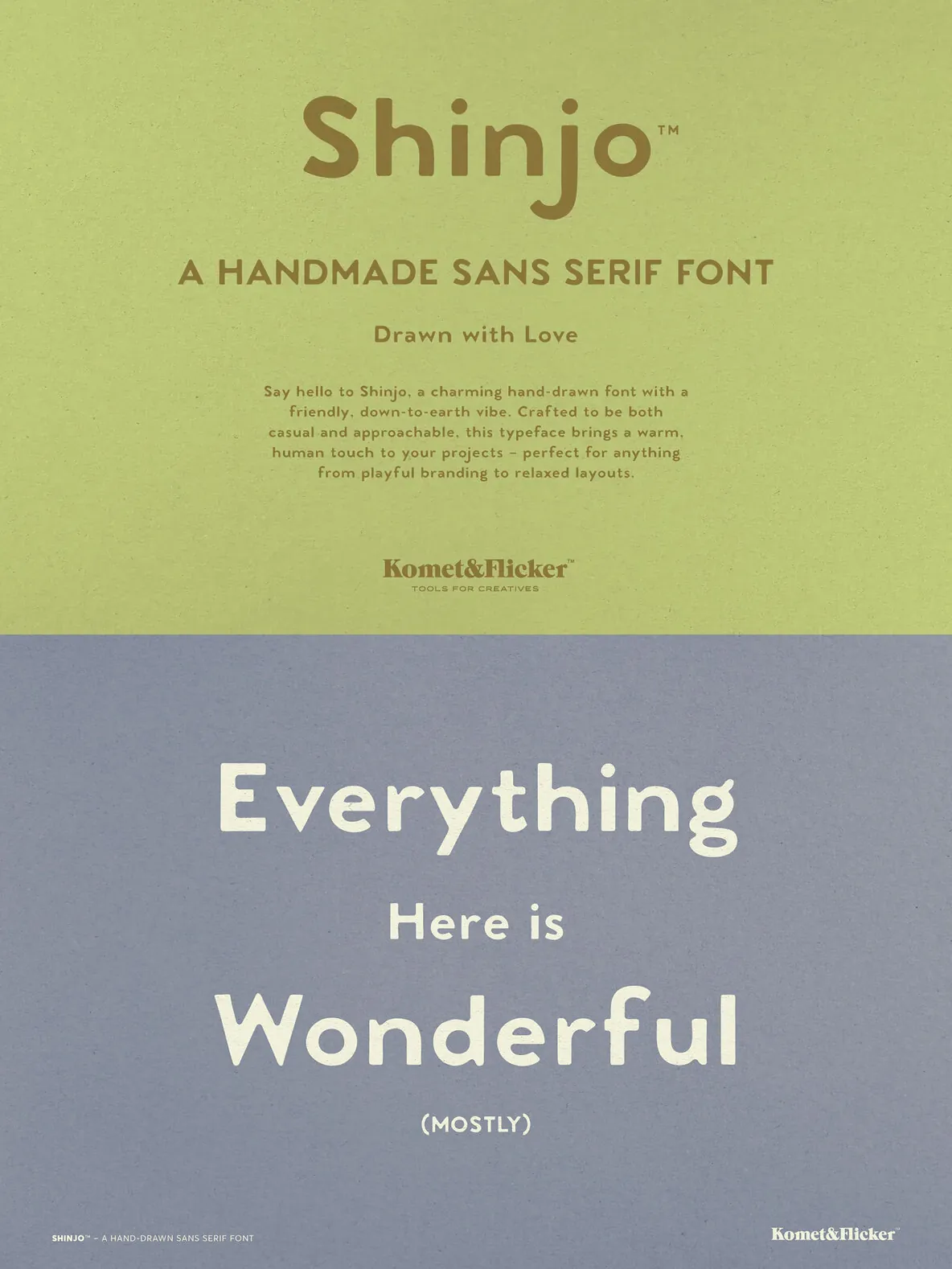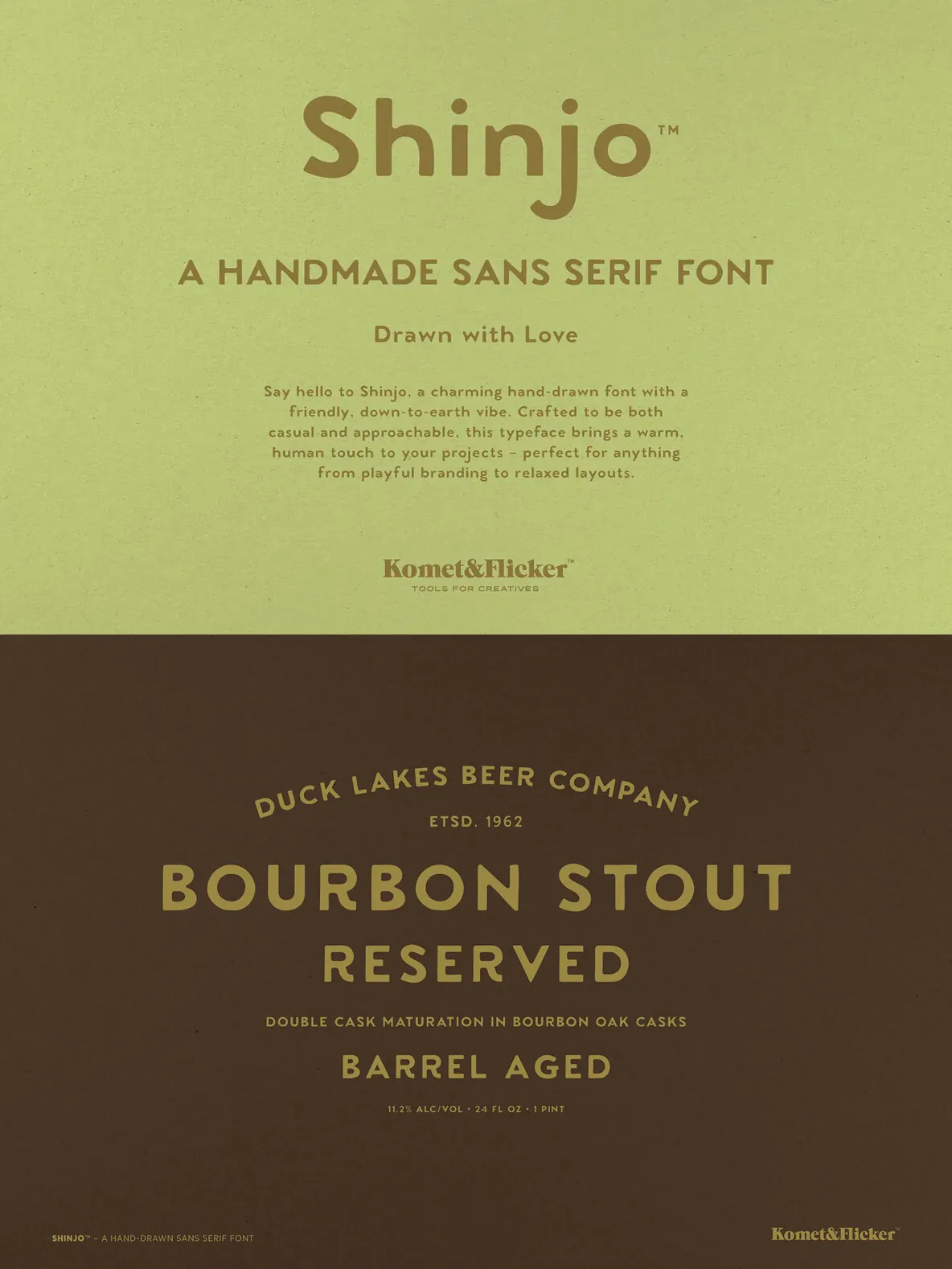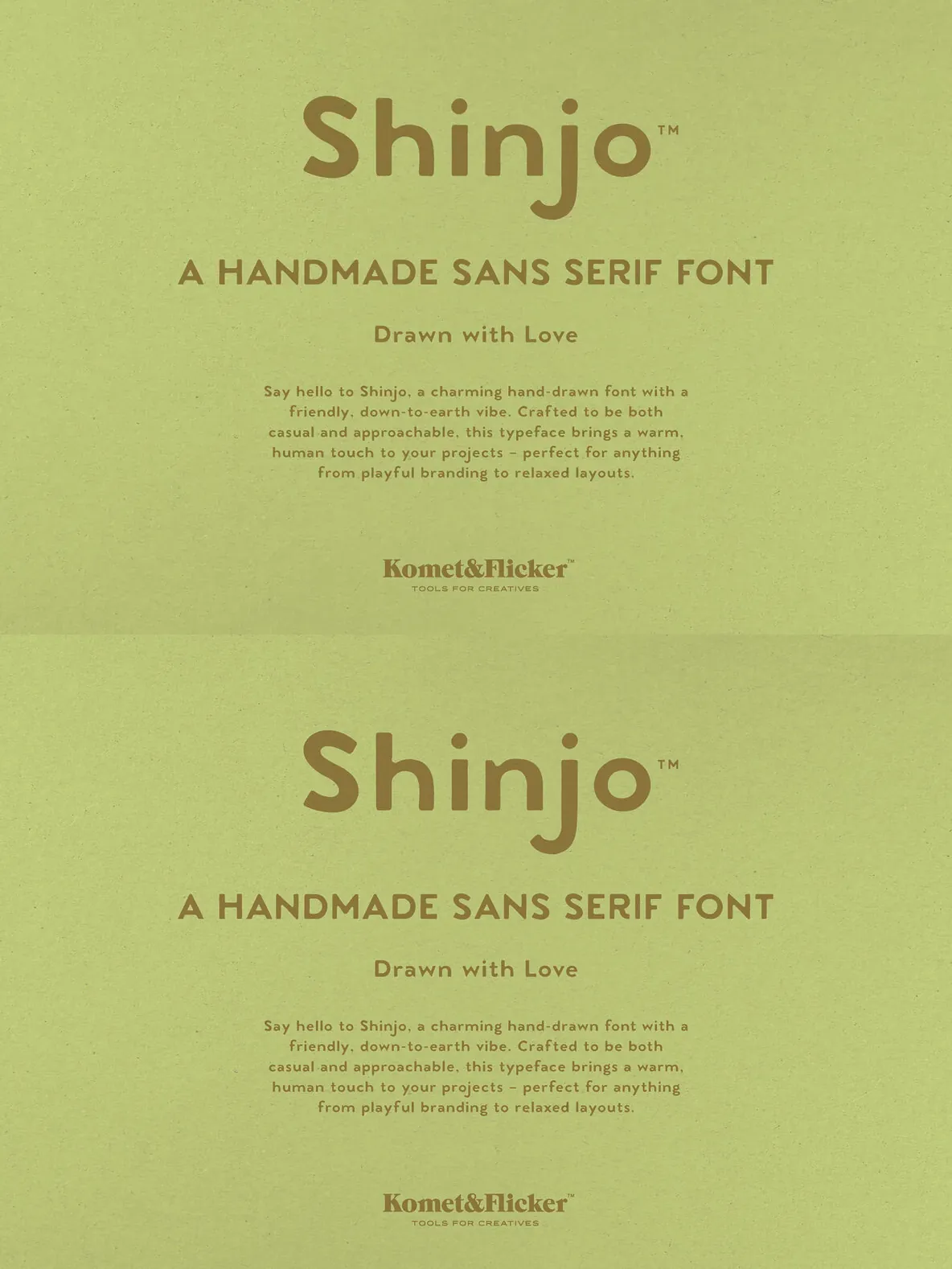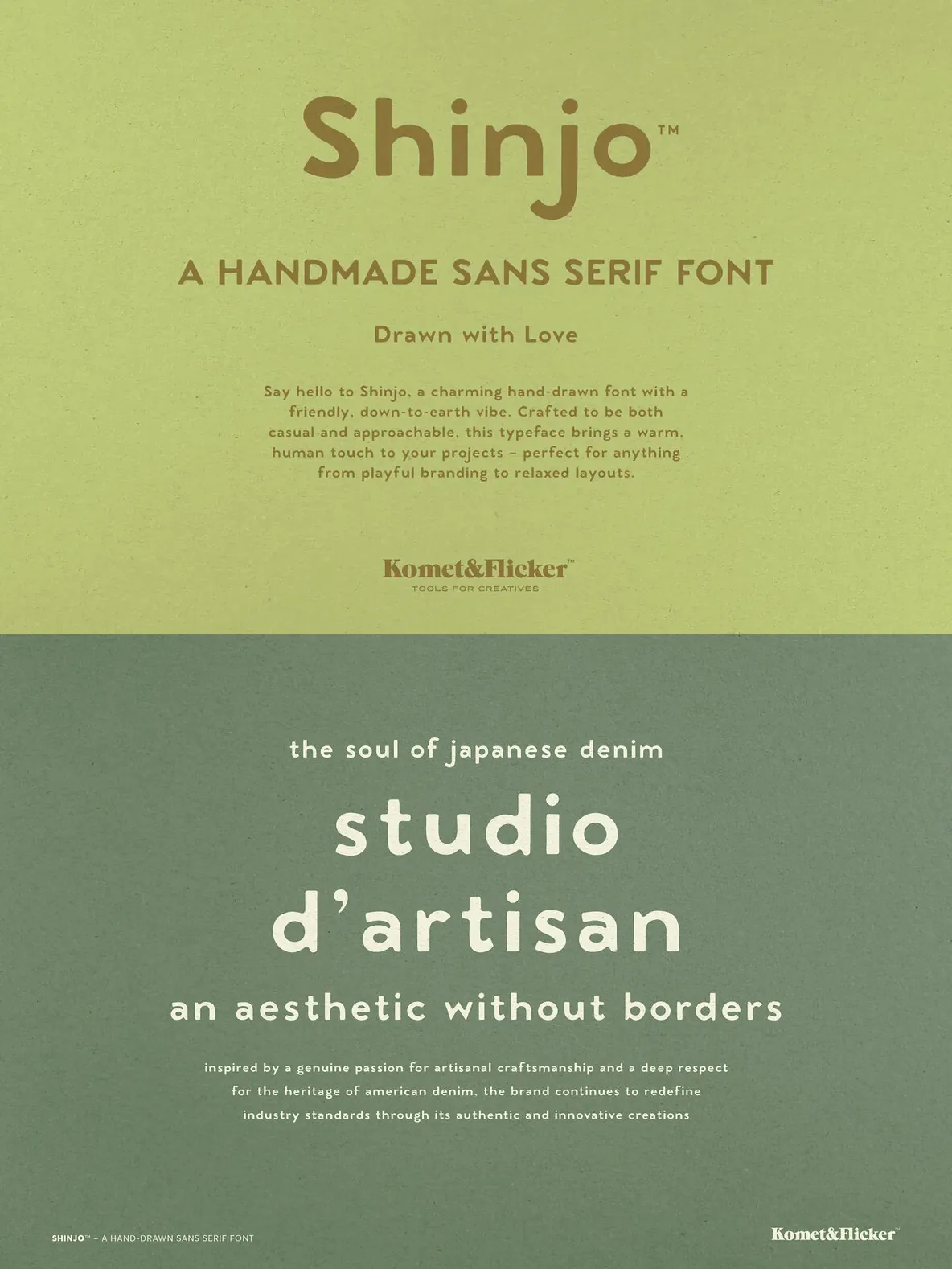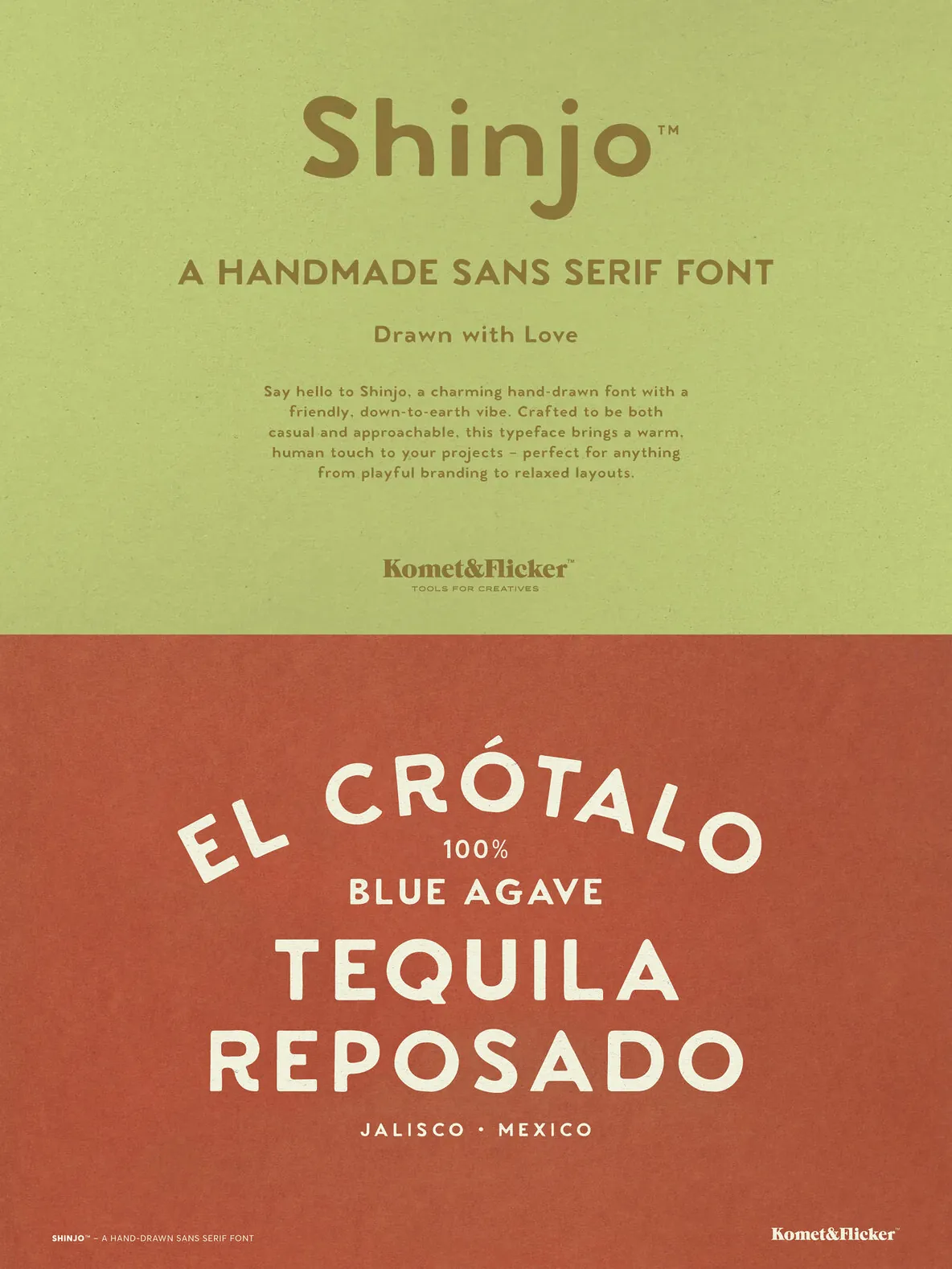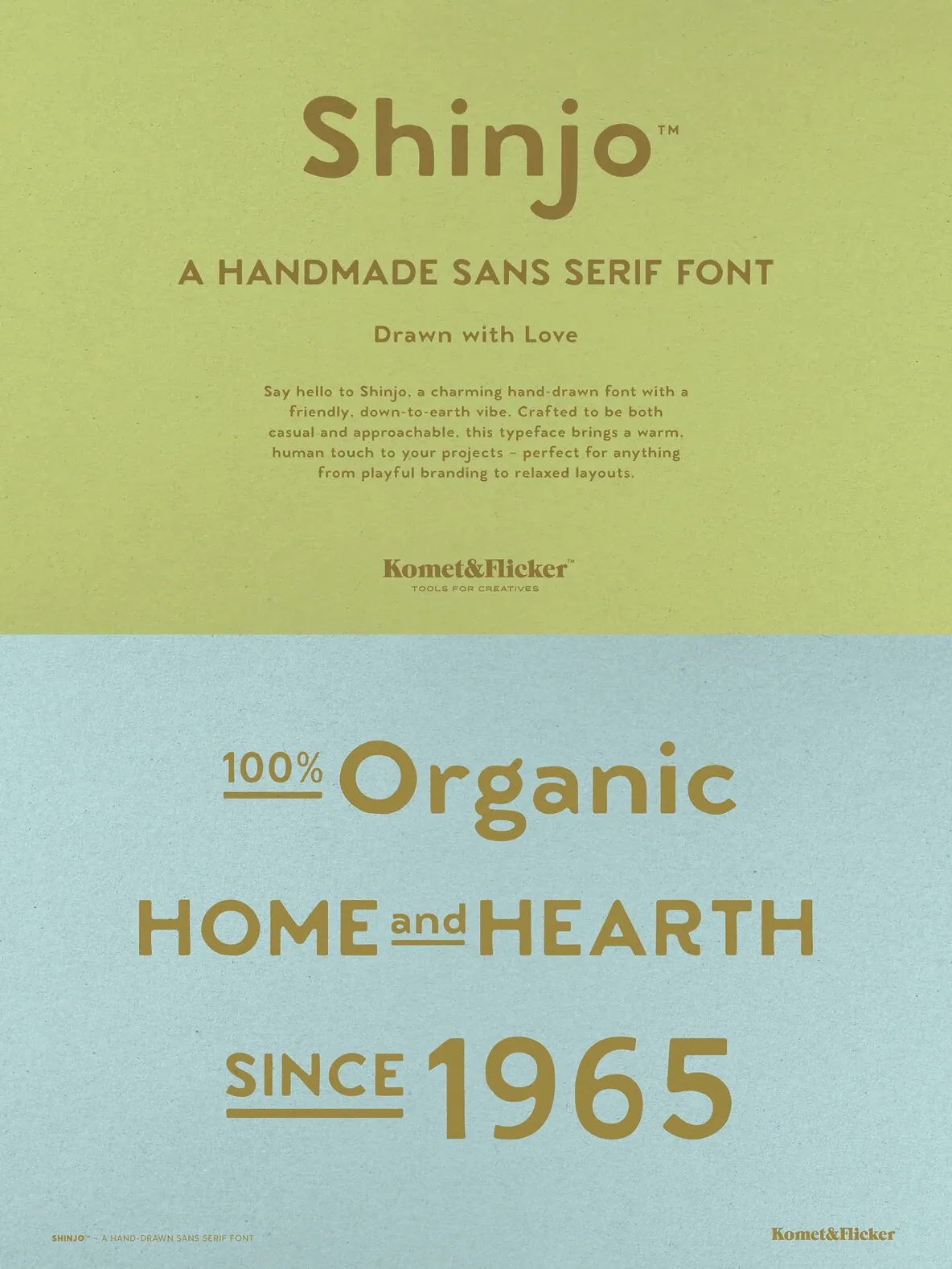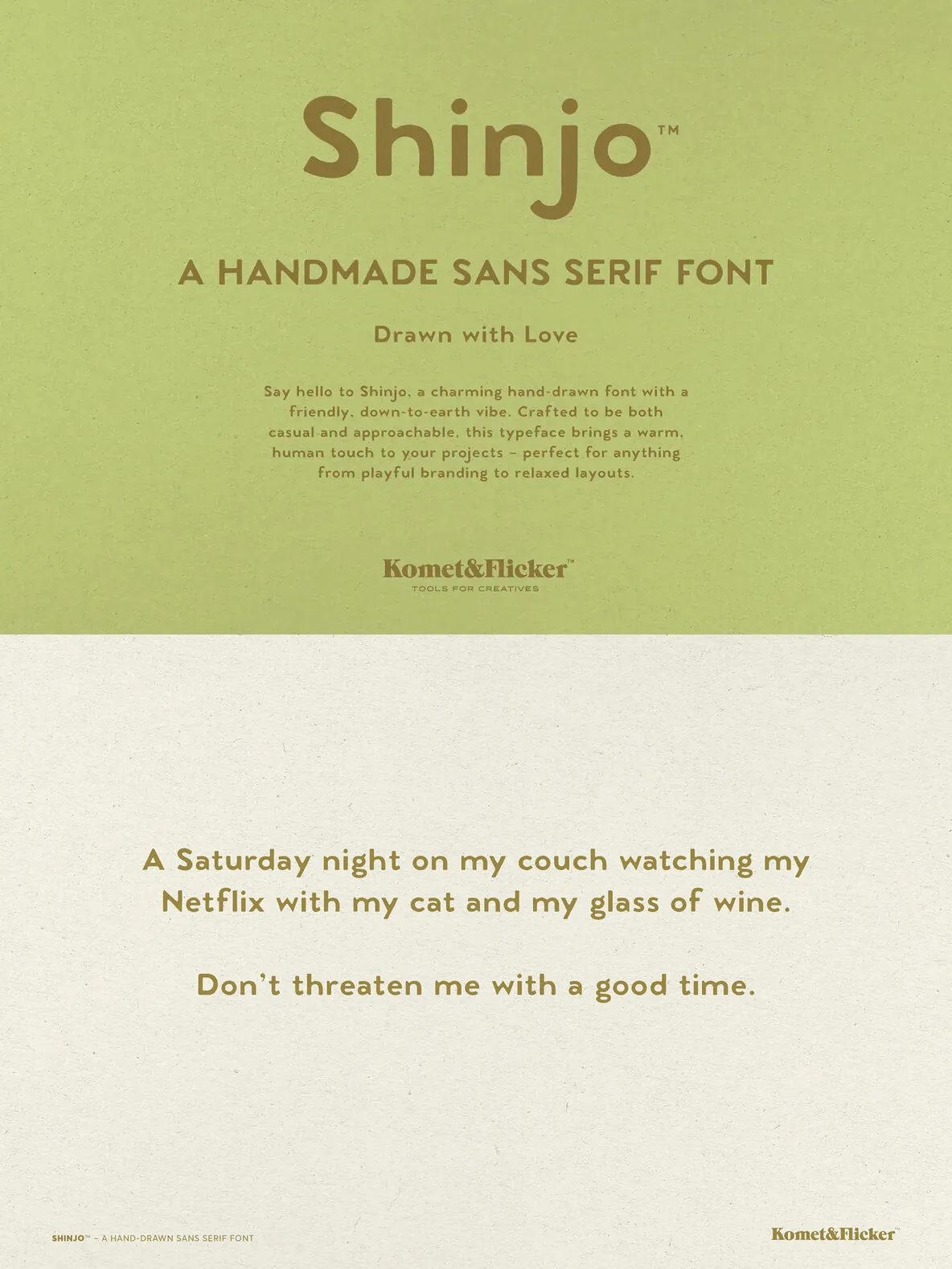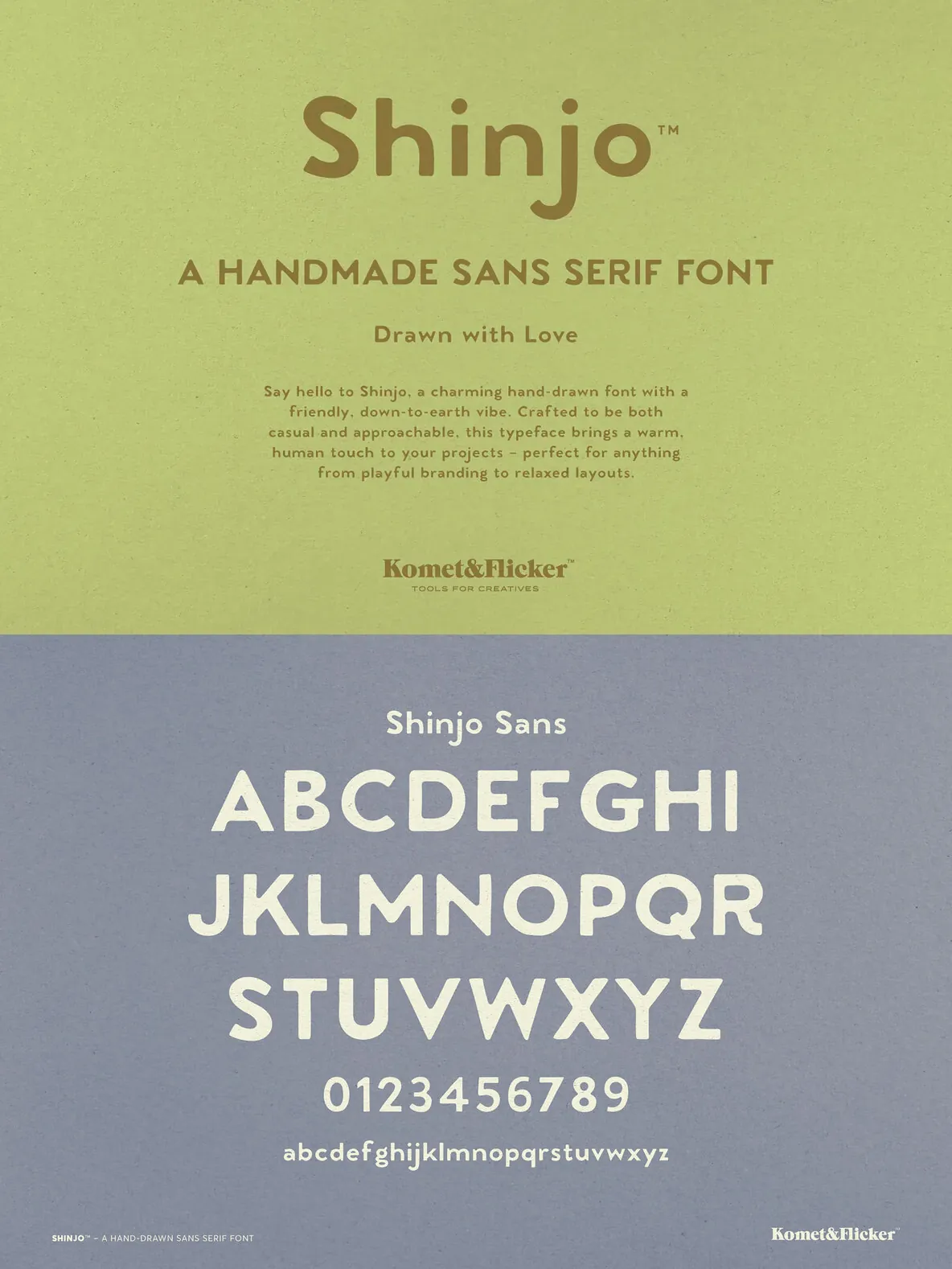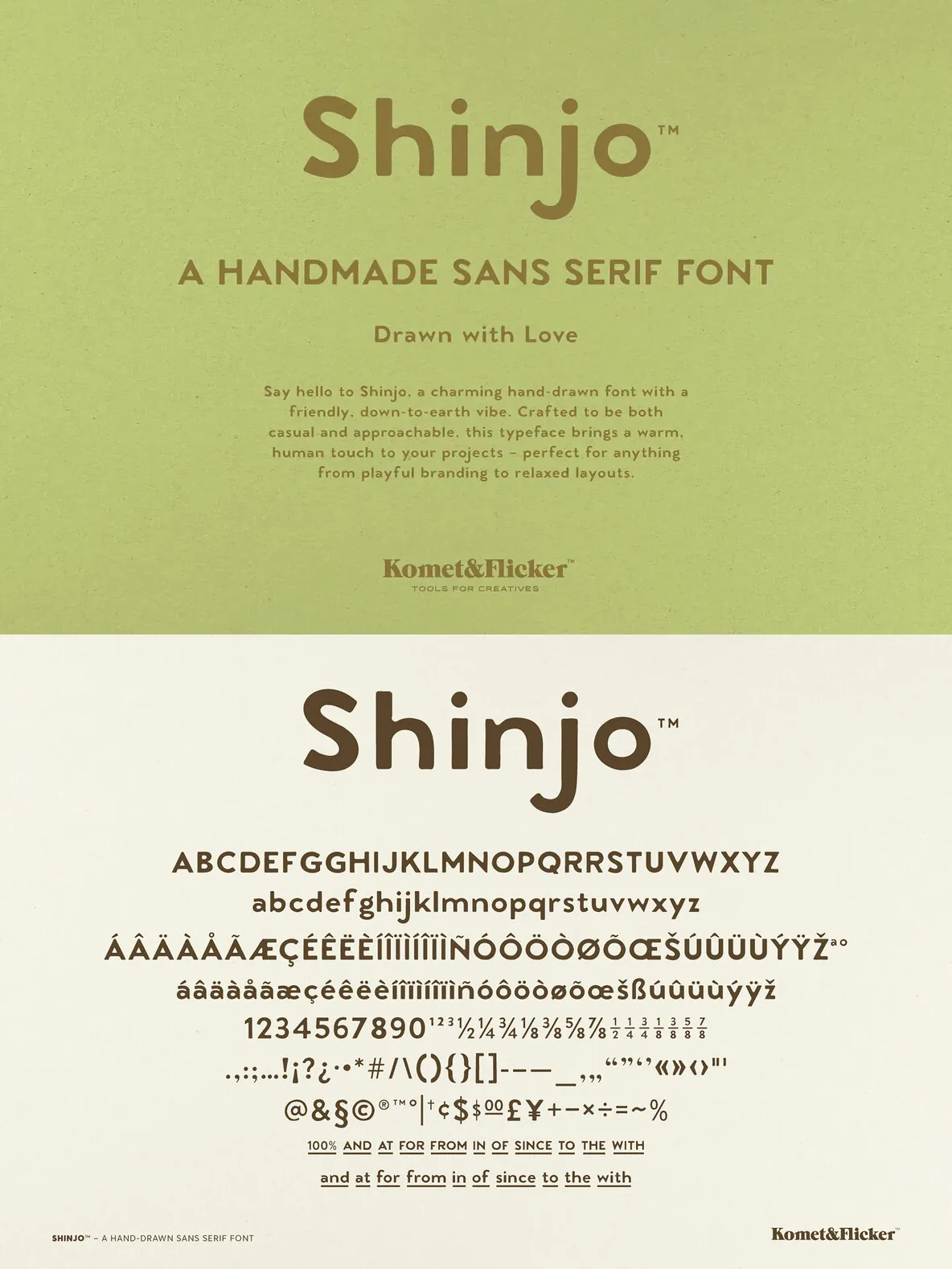
Shinjo — Hand-Drawn Warmth, Everyday
Say hello to Shinjo, a charming hand-drawn font with a friendly, down-to-earth vibe. Designed to feel casual and approachable, this typeface adds a warm, human touch to typography—ideal for playful branding, informal packaging, social posts, and relaxed editorial layouts. As a handmade font, Shinjo keeps its imperfect, organic personality. The result is lettering that feels personal and genuinely unique, while still staying clear and readable across a range of design uses.
Shinjo includes a set of 10 custom connecting words in two styles (ie: AND, THE, WITH), made to integrate with the rest of your text for added flair. You’ll also find alternate versions of the uppercase G and R glyphs for more control over tone and rhythm. In Illustrator, the extra custom glyphs can easily be accessed in the Type → Glyphs panel. In Photoshop they can be accessed through Type → Panels → Glyphs Panel.
Full A-Z upper and lowercase basic latin characters
Select European specific characters
Numbers, punctuation, and select symbols
Two styles of pre-made common fractions
Set of 21 custom connecting word glyphs